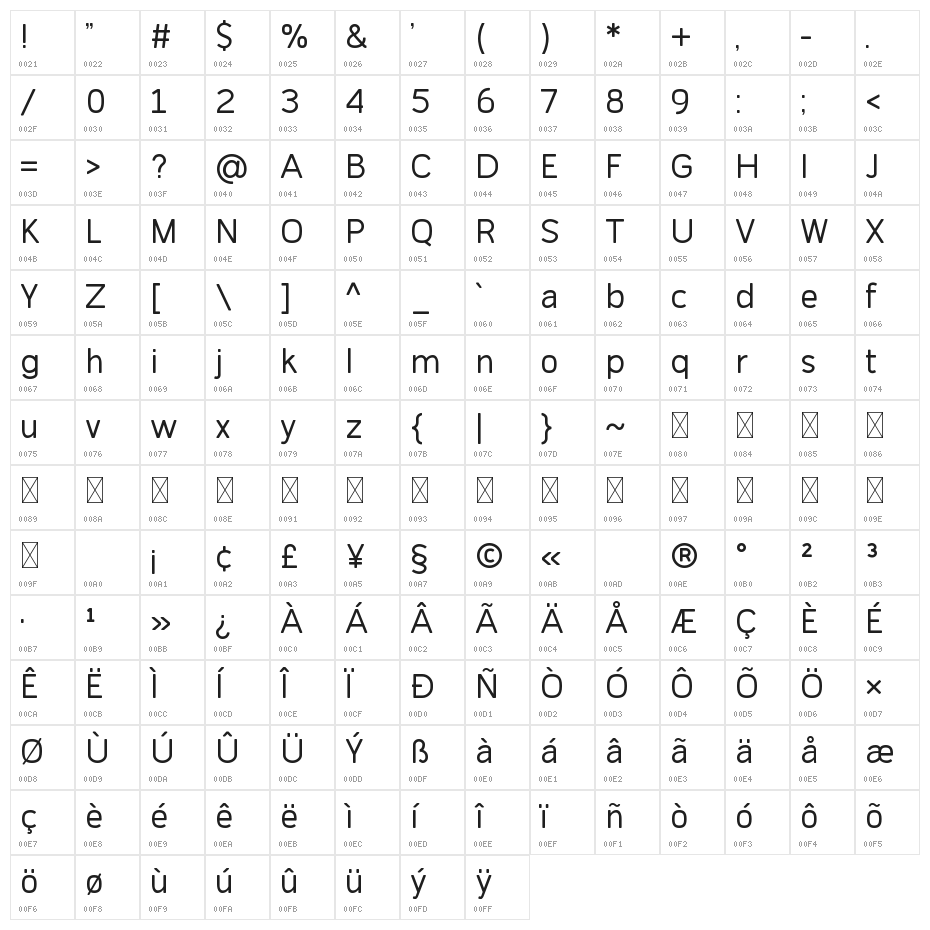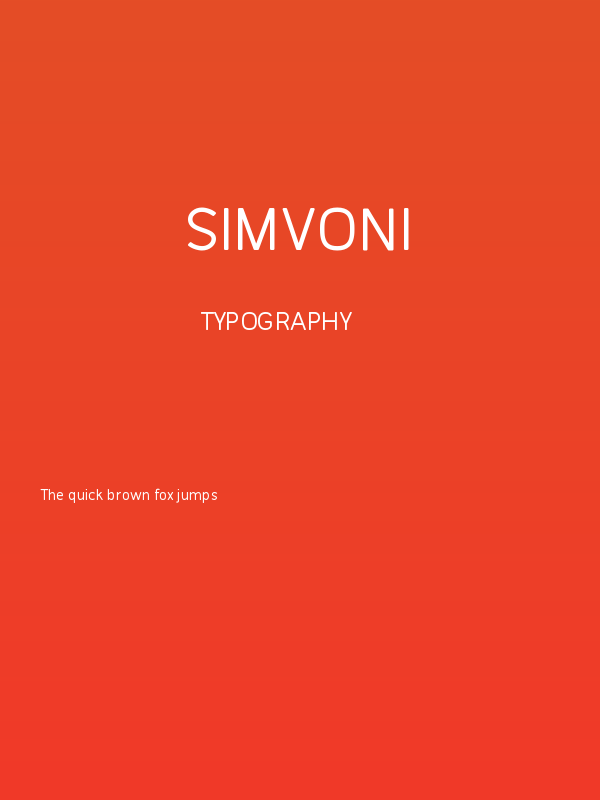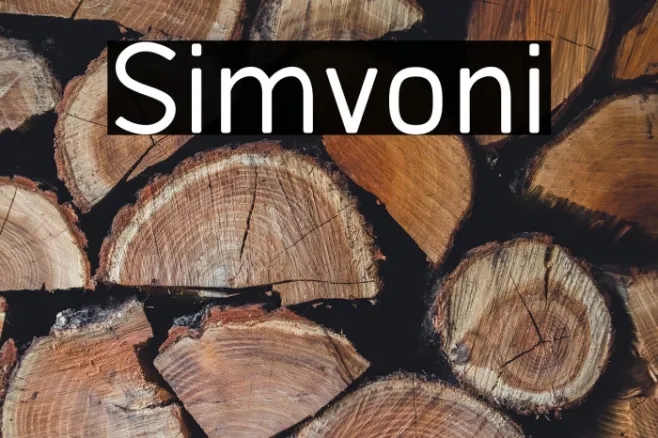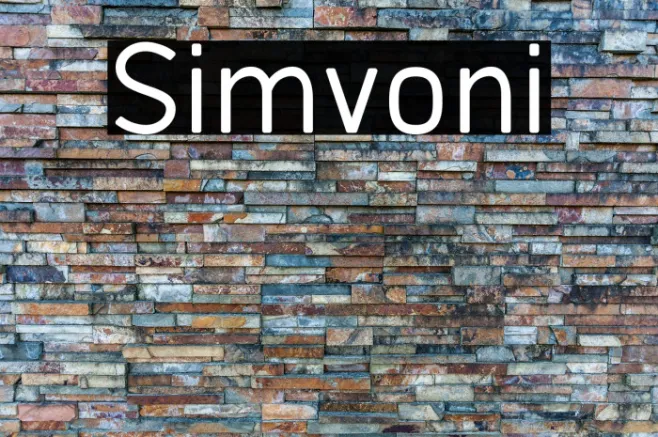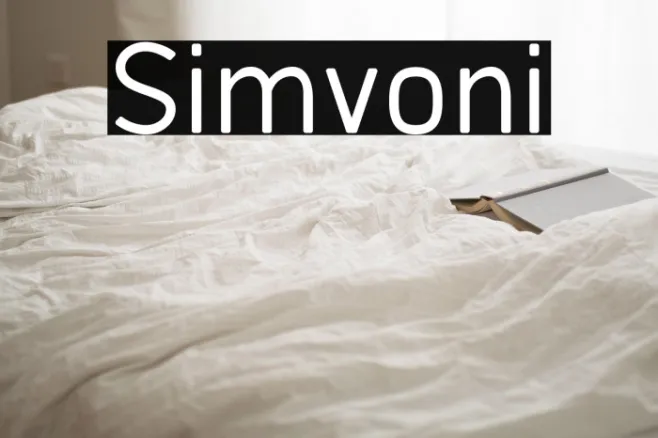
Simvoni Font
Simvoni Description
This font features a clean and modern sans-serif design, characterized by its simplicity and readability. The letters are evenly spaced with a consistent stroke width, offering a balanced and harmonious appearance. The uppercase and lowercase letters maintain a uniform height, contributing to its legibility. The numerals are clear and distinct, making them easily recognizable. Special characters are well-integrated, maintaining the overall aesthetic of the font. Its straightforward design makes it versatile for various applications, from digital to print media.